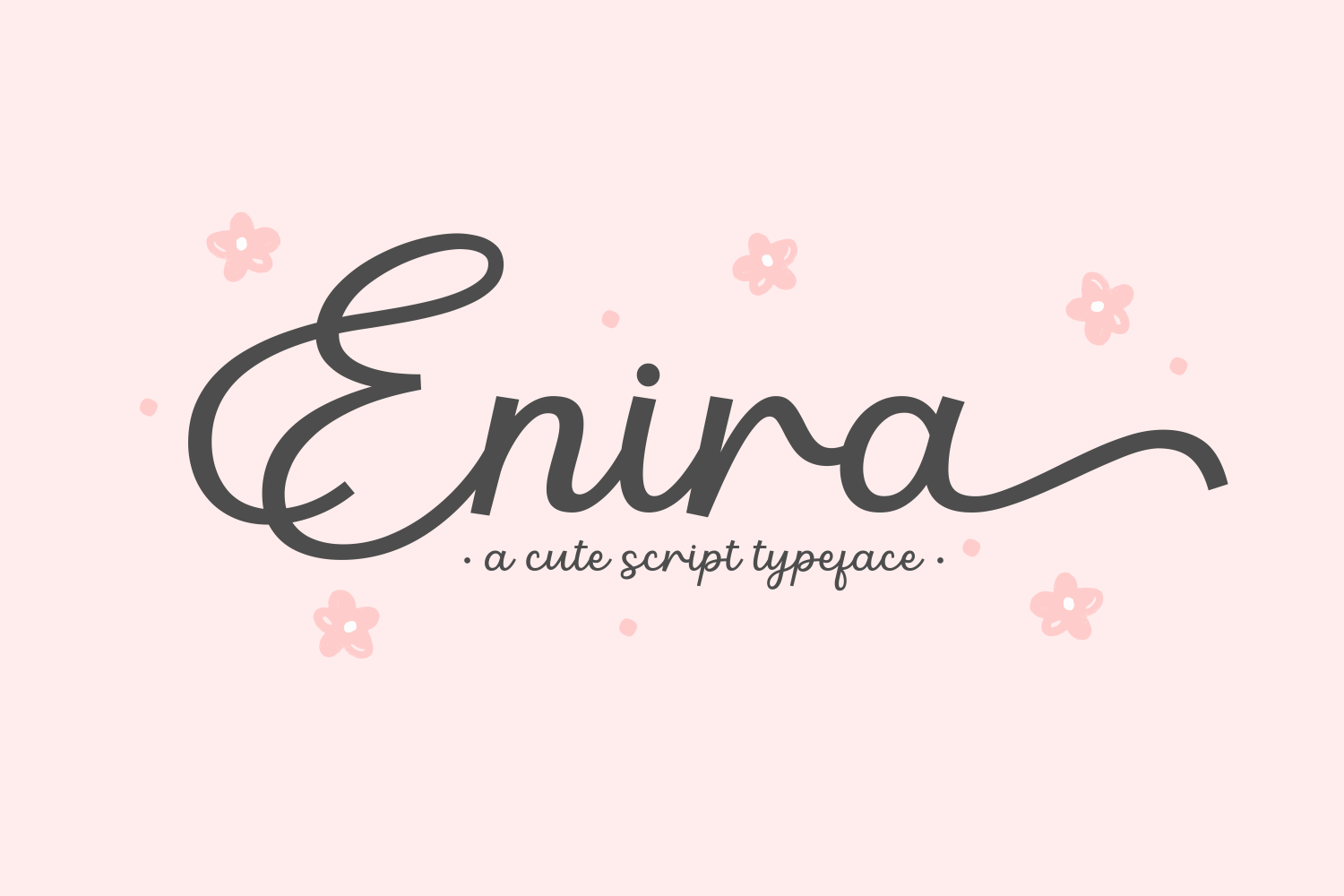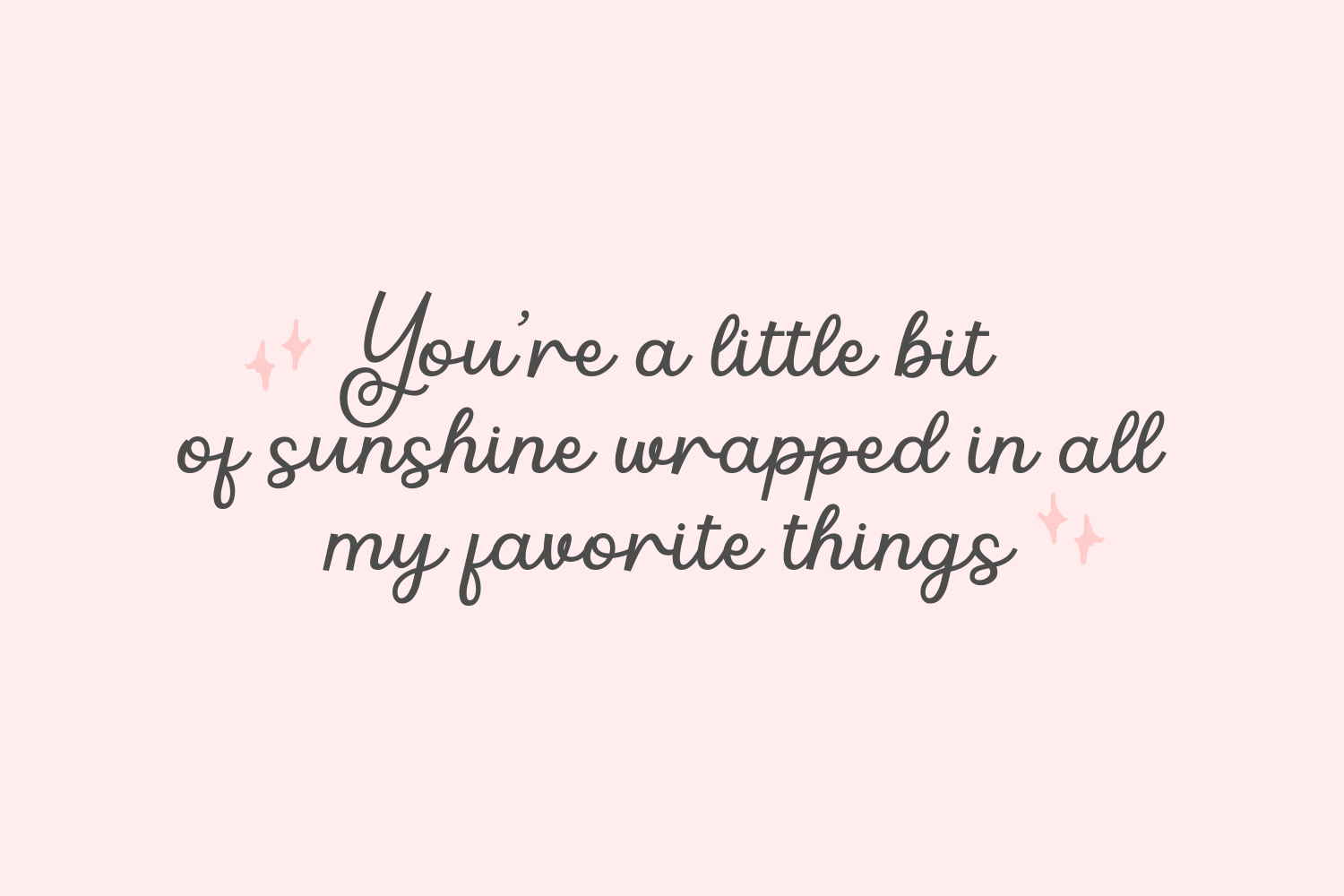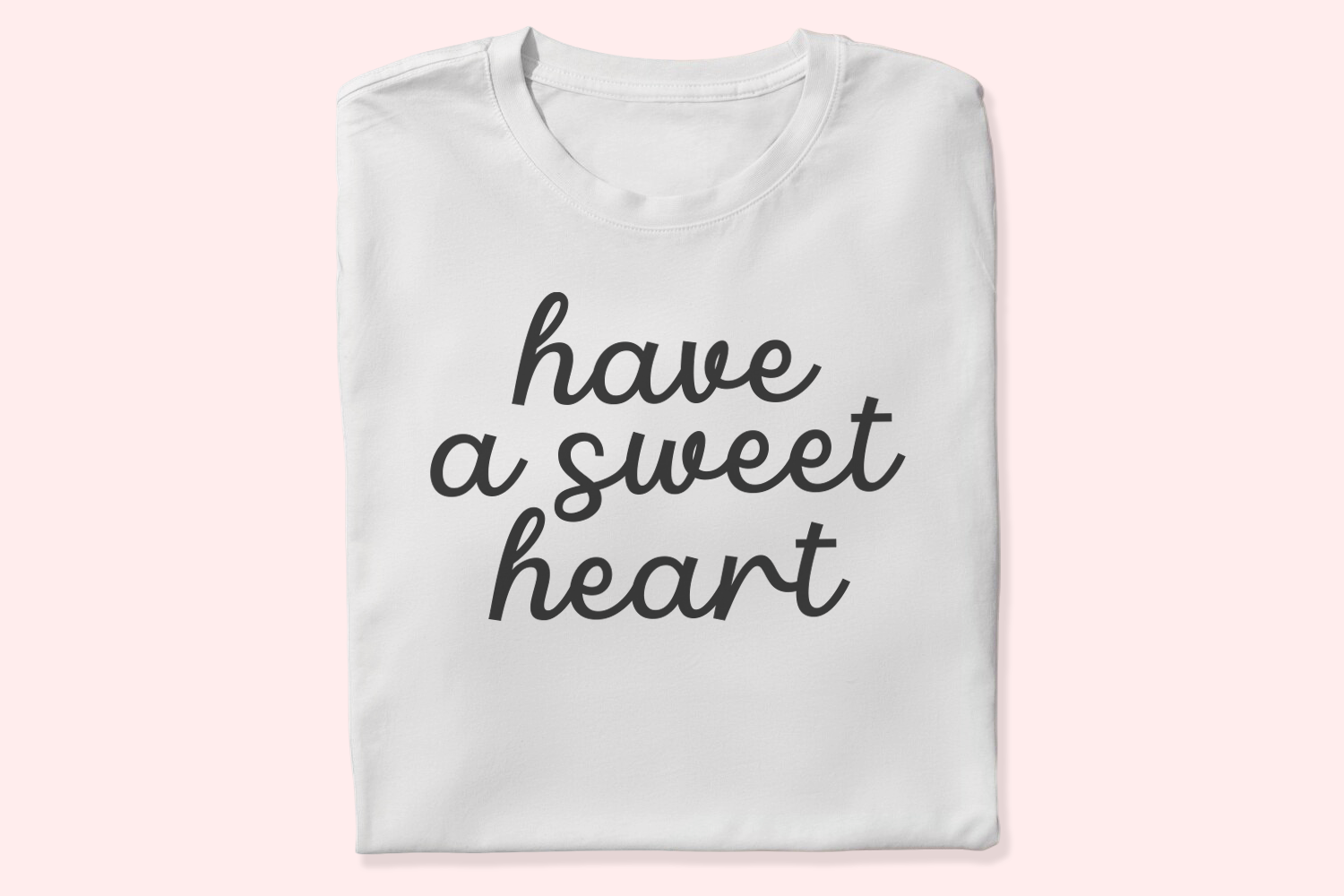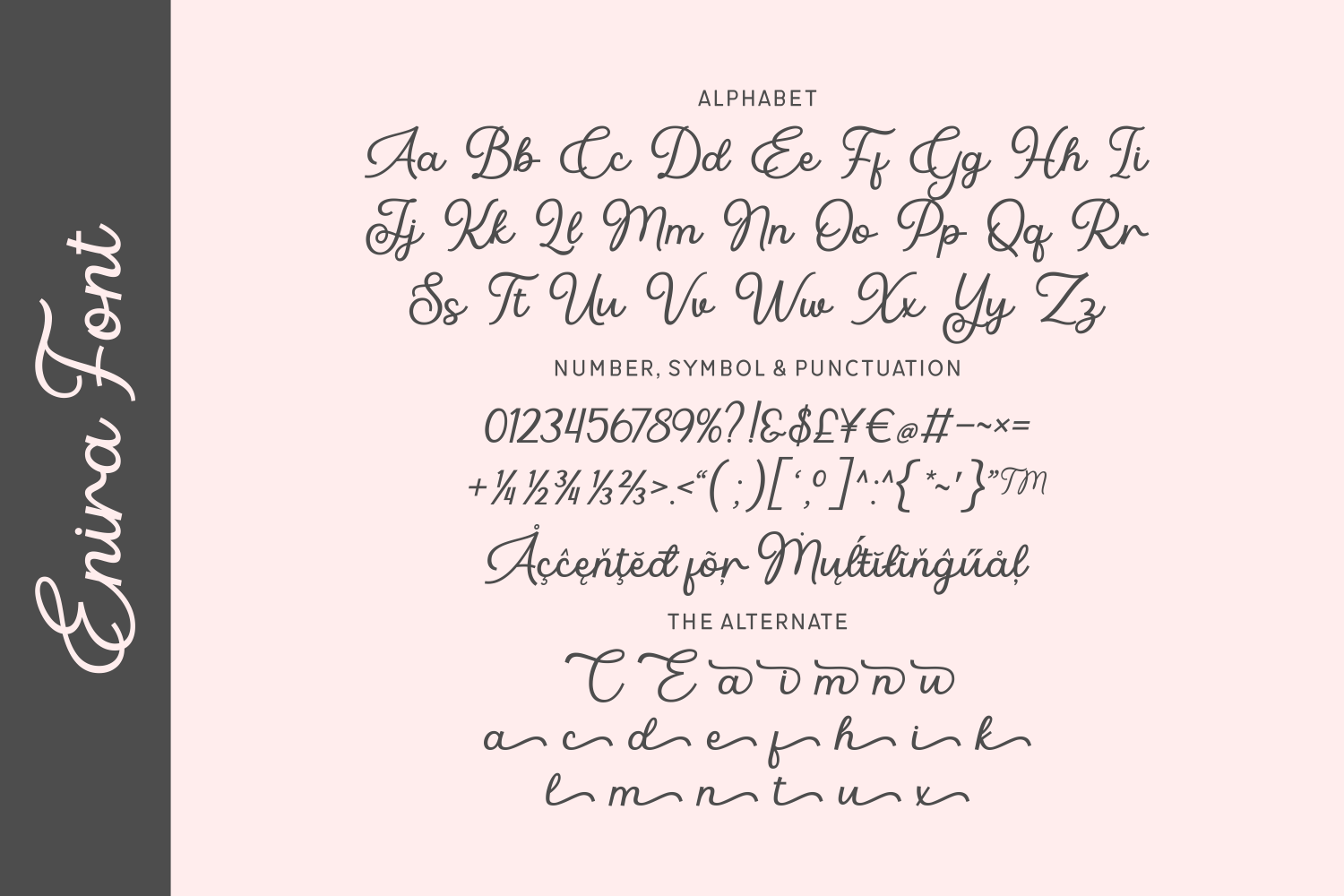
Enira is a delightful and playful script typeface with soft curves and elegant swashes, perfect for crafting cute designs with a charming touch. Ideal for invitations, branding, greeting cards, and anything that needs a sweet and girly aesthetic.